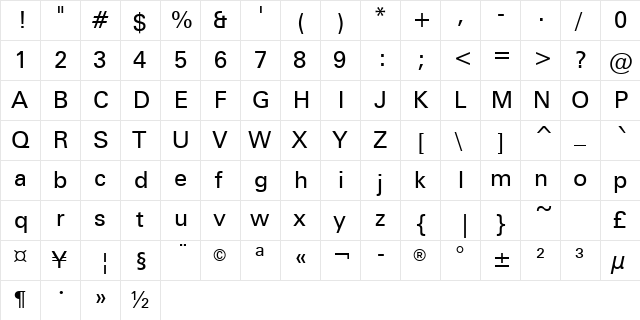
ZurichGreek BT Roman
Design Context for ZurichGreek BT Typeface
ZurichGreek BT takes a measured approach to typography — its balanced proportions and neutral character make it a reliable workhorse for both digital and print work.